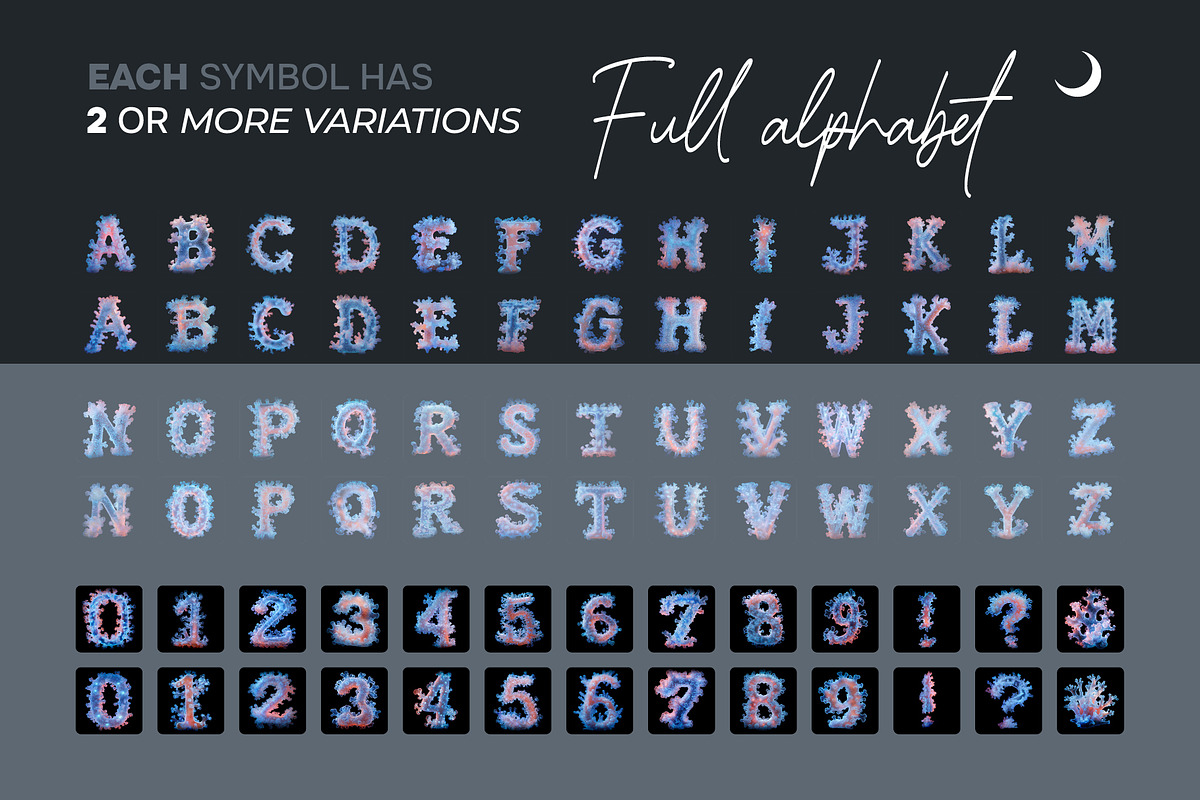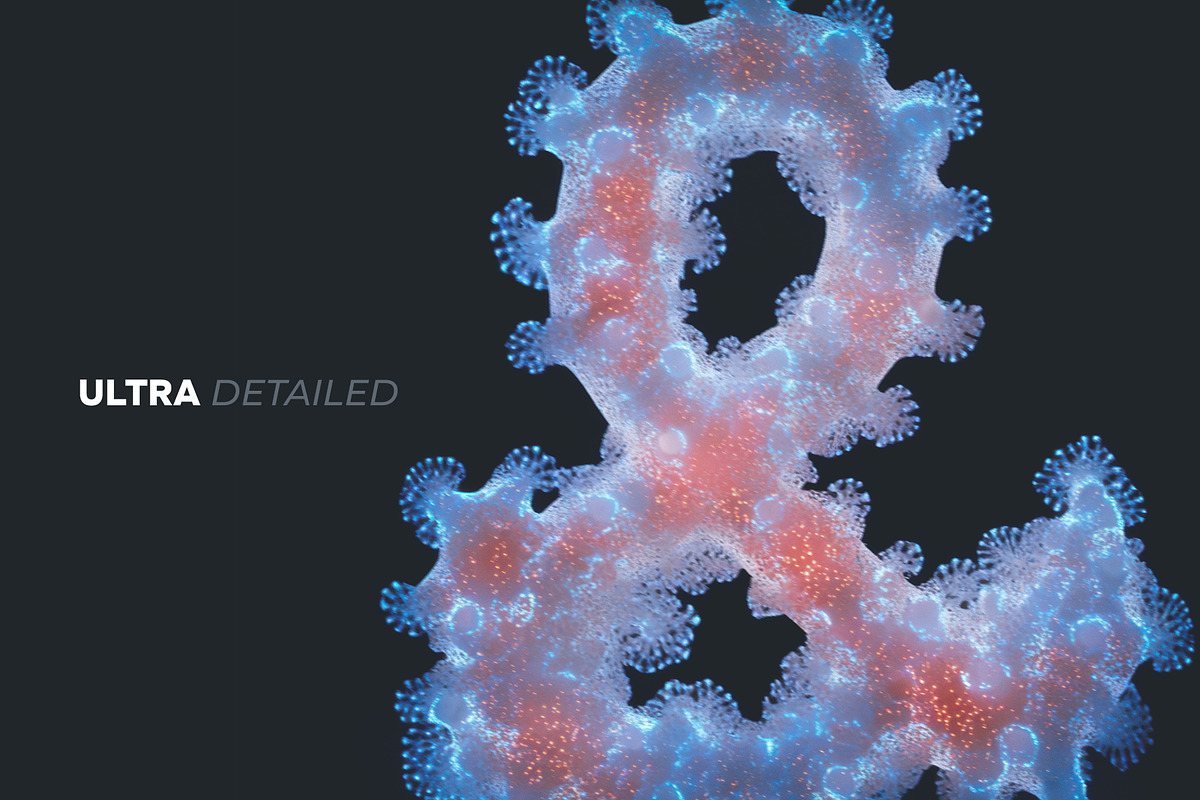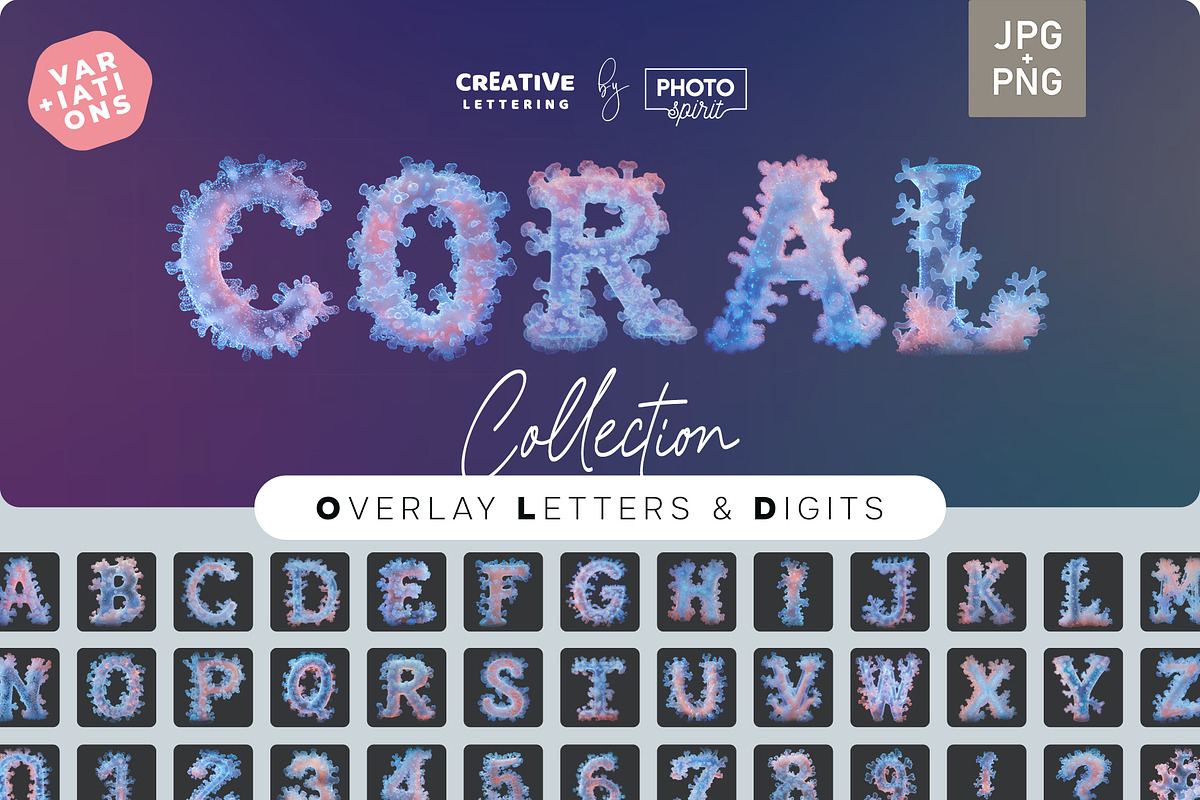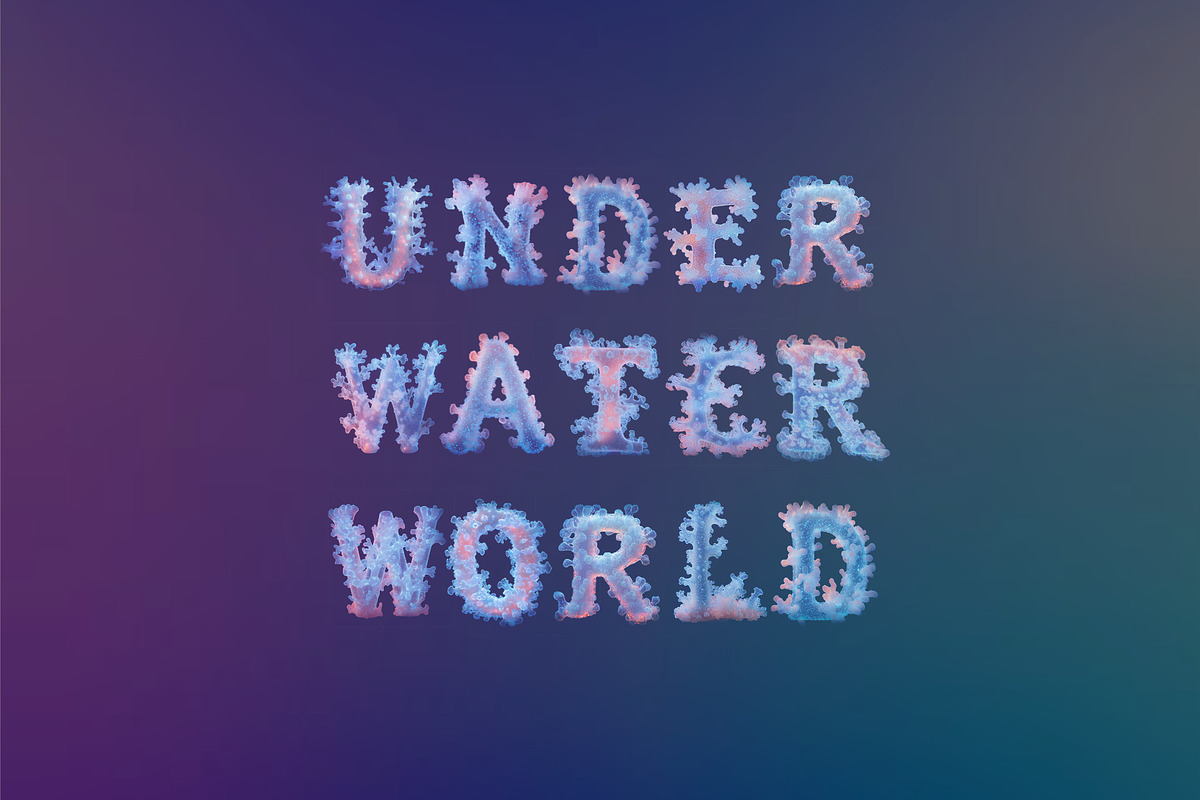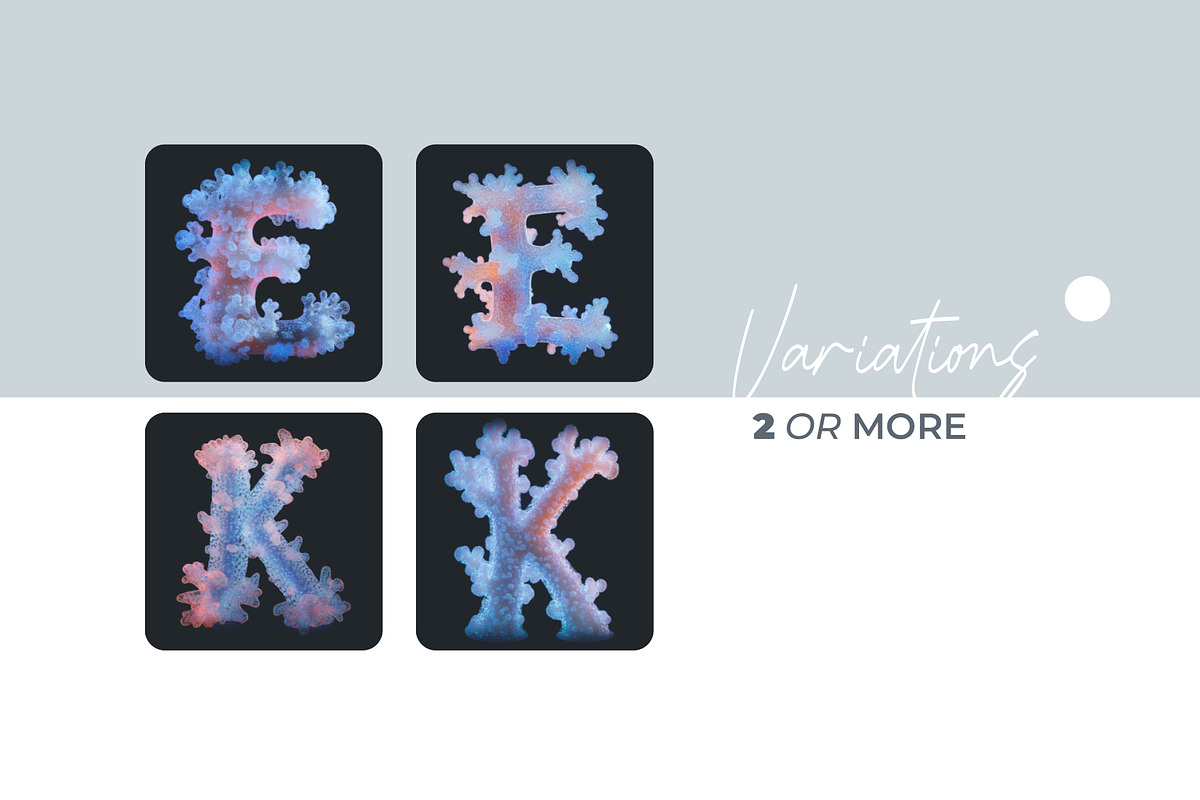
Luminescent Corals Letters Overlays
Transform your creative work with the Luminescent Corals Letters Overlays Collection — a stunning set of alphabet overlays inspired by the glowing magic of deep-sea corals. Each letter is designed to reflect the soft luminescence and fluid beauty of ocean reefs, making it perfect for adding an ethereal, aquatic vibe to your designs.
Whether you’re crafting branding, social content, event invitations, or personal artwork, these overlays will enrich your designs with underwater elegance and mystery. ✨ Features:
Complete Alphabet + Symbols Includes uppercase letters, numbers, and essential punctuation.
Multiple Coral Styles Per Letter 2–5 glowing coral-inspired variations per letter for creative variety.
Realistic Luminescent Effects Captures the radiant, soft-glow of underwater coral formations.